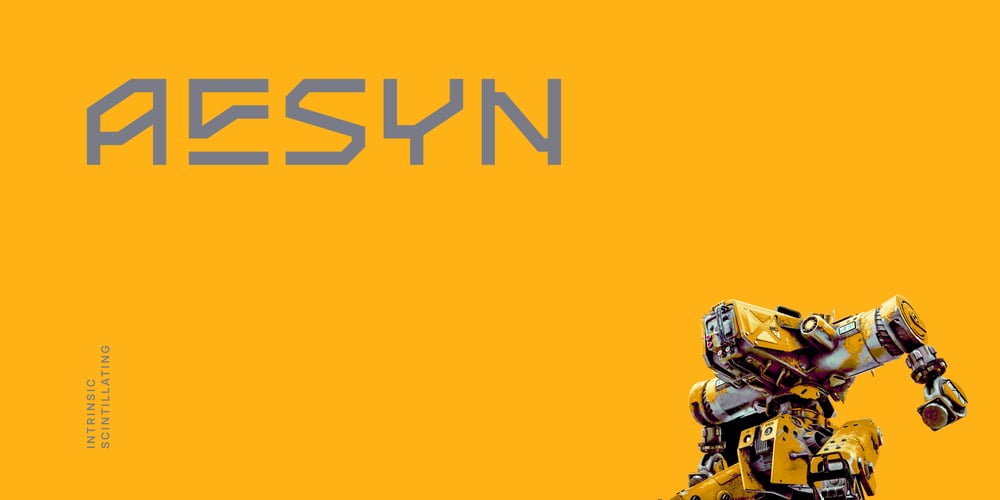
Aesyn Font Family was designed by Andrew Seah and published by Baqoos. Aesyn contains 4 styles and family package options. Ogibo is an intrinsic scintillating tech sans apt for headline, editorial, branding, packaging, printed materials and typographic applications. 200+ glyphs with ligatures and fractions provided in opentype .otf and .woff format.